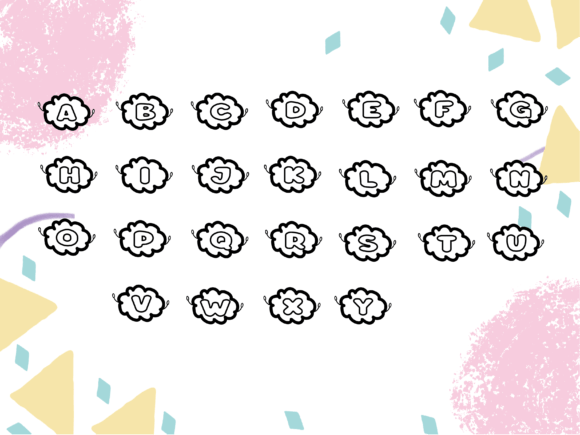
Introducing Cloud Doodles Font: The Perfect Addition to Your Design Arsenal
Are you a designer, crafter, or DIY enthusiast looking for a unique and playful font to elevate your creative projects? Look no further than Cloud Doodles Font! This fun and interesting decorative font is designed to bring a friendly vibe to your designs, making it perfect for creating a wide range of projects, from stickers to posters, planners, and more.
What is Cloud Doodles Font?
Cloud Doodles Font is a carefully crafted decorative font that is sure to capture the attention of your audience. Its playful and whimsical design features cloud-like shapes and doodles, giving it a lighthearted and friendly feel. This font is perfect for designers and crafters who want to add a touch of personality to their work.
Key Features of Cloud Doodles Font
- Unique and Playful Design: Cloud Doodles Font features a one-of-a-kind design that is sure to make your projects stand out.
- Friendliness and Approachability: The font’s friendly vibe makes it perfect for creating designs that are approachable and engaging.
- Versatility: Cloud Doodles Font can be used for a wide range of projects, including stickers, posters, planners, and more.
Uses of Cloud Doodles Font
Cloud Doodles Font is a versatile font that can be used for a variety of projects. Here are some ideas to get you started:
- Stickers and Labels: Add a playful touch to your stickers and labels with Cloud Doodles Font.
- Posters and Flyers: Create eye-catching posters and flyers with this fun and interesting font.
- Planners and Journals: Use Cloud Doodles Font to add a personal touch to your planners and journals.
- Social Media Graphics: Elevate your social media graphics with this unique and playful font.
- Crafting and DIY Projects: Cloud Doodles Font is perfect for crafters and DIY enthusiasts who want to add a personal touch to their projects.
Benefits of Using Cloud Doodles Font
Using Cloud Doodles Font in your designs offers a range of benefits, including:
- Increased Creativity: This font’s unique design is sure to inspire your creativity and help you think outside the box.
- Improved Engagement: The friendly and approachable vibe of Cloud Doodles Font is perfect for creating designs that engage and captivate your audience.
| Font Name | Cloud Doodles Font |
| Author | Happy Bamboo |
Cloud Doodles Font is a fun and interesting decorative font that is perfect for designers, crafters, and DIY enthusiasts. Its friendly vibe and playful design make it ideal for creating a wide range of projects, from stickers to posters, planners, and more. With its ease of use, versatility, and affordability, Cloud Doodles Font is a must-have addition to your design arsenal.